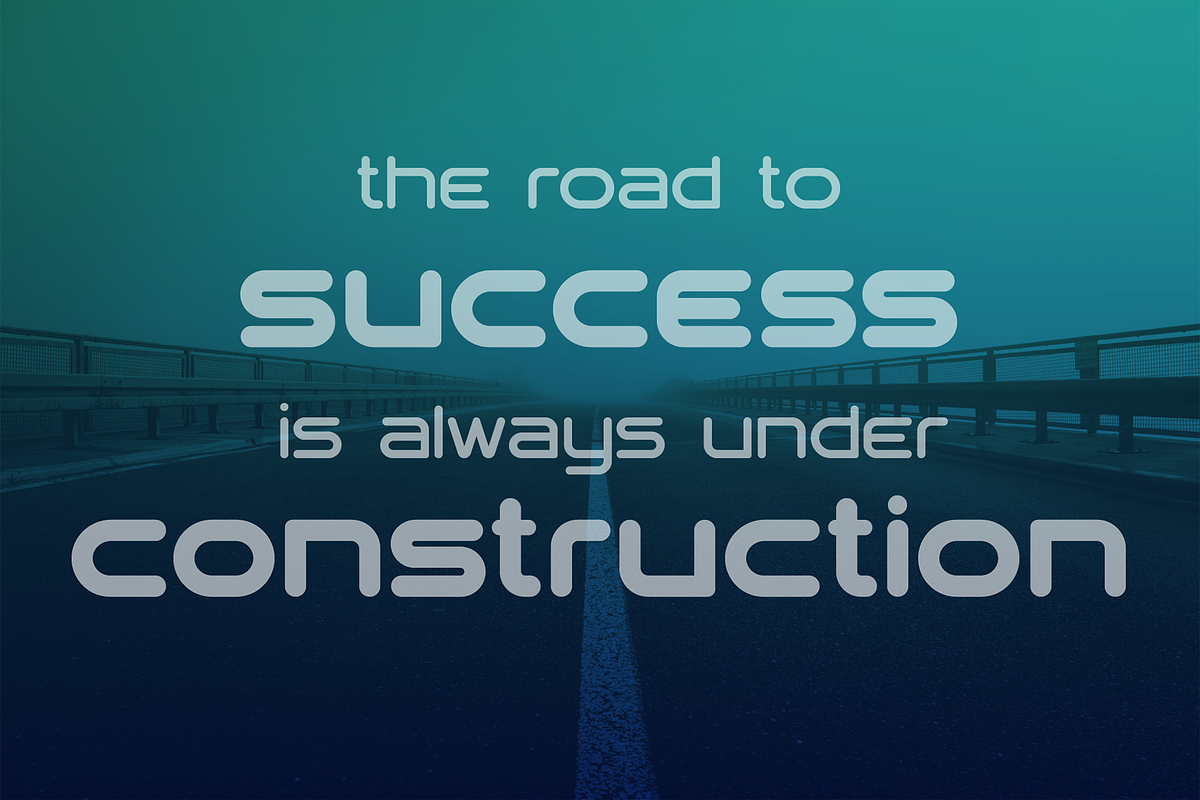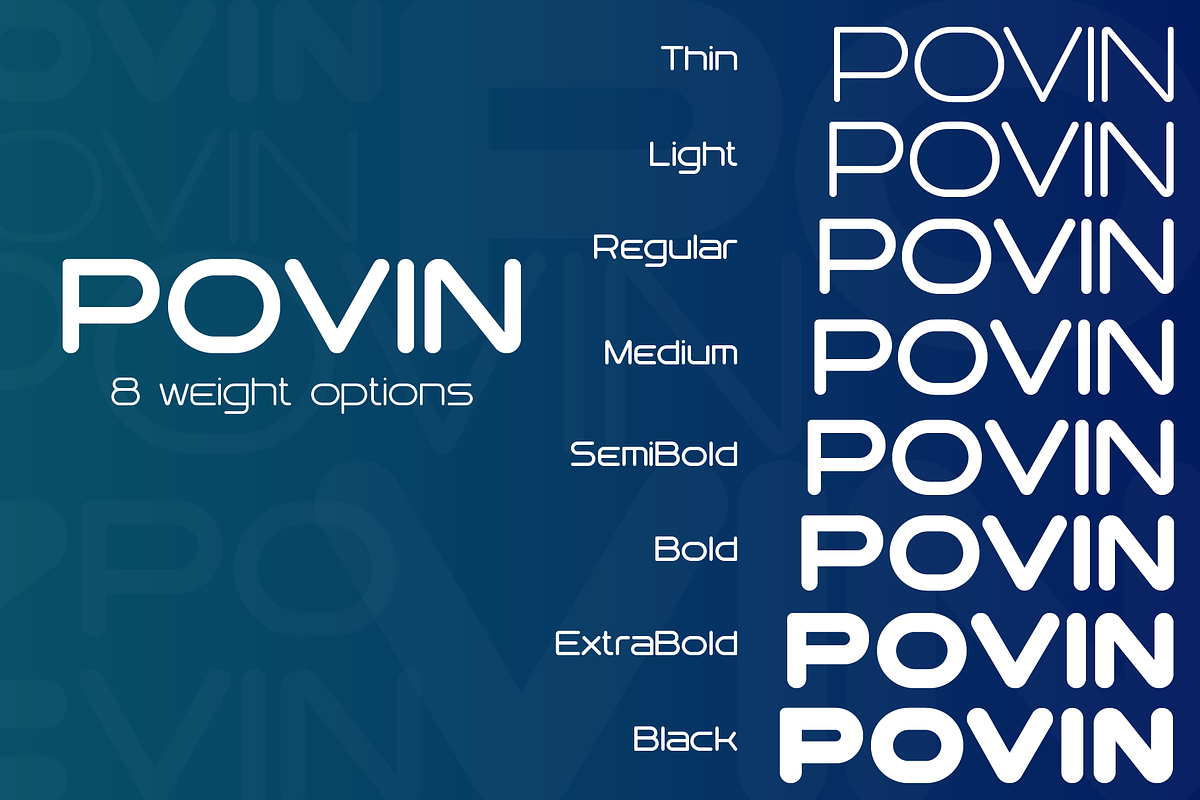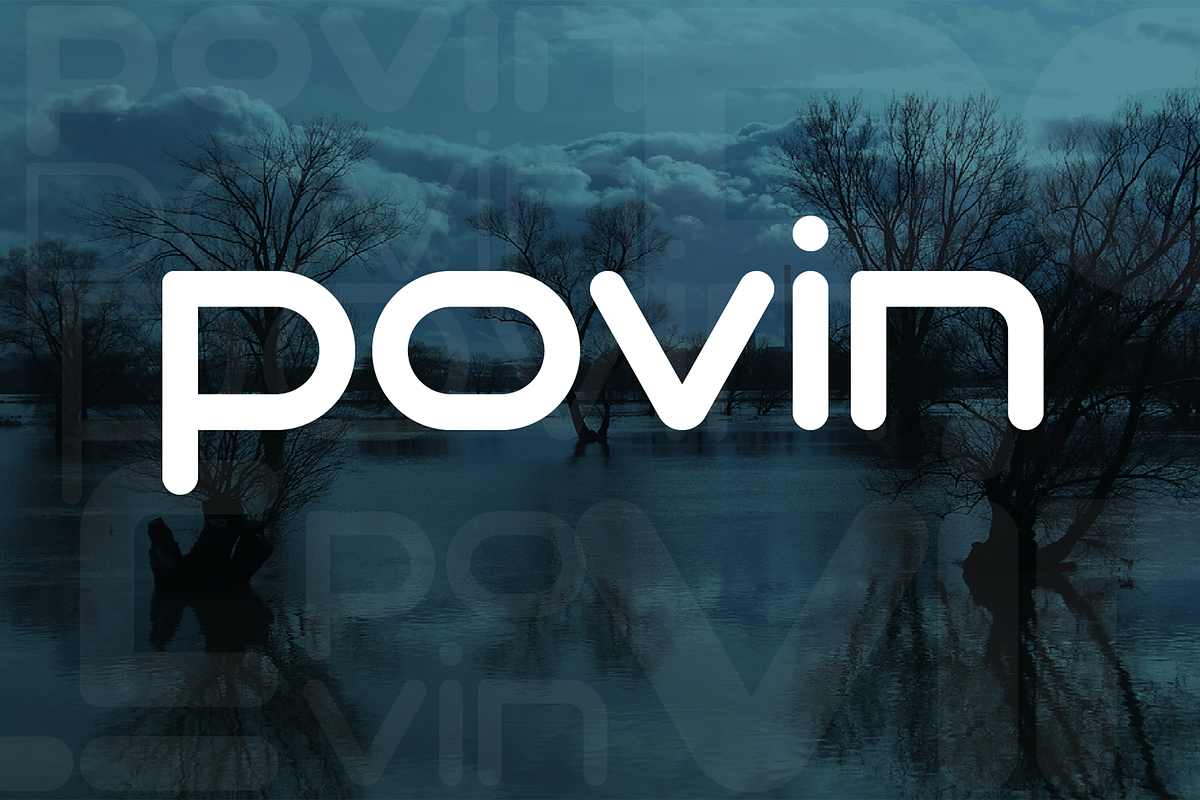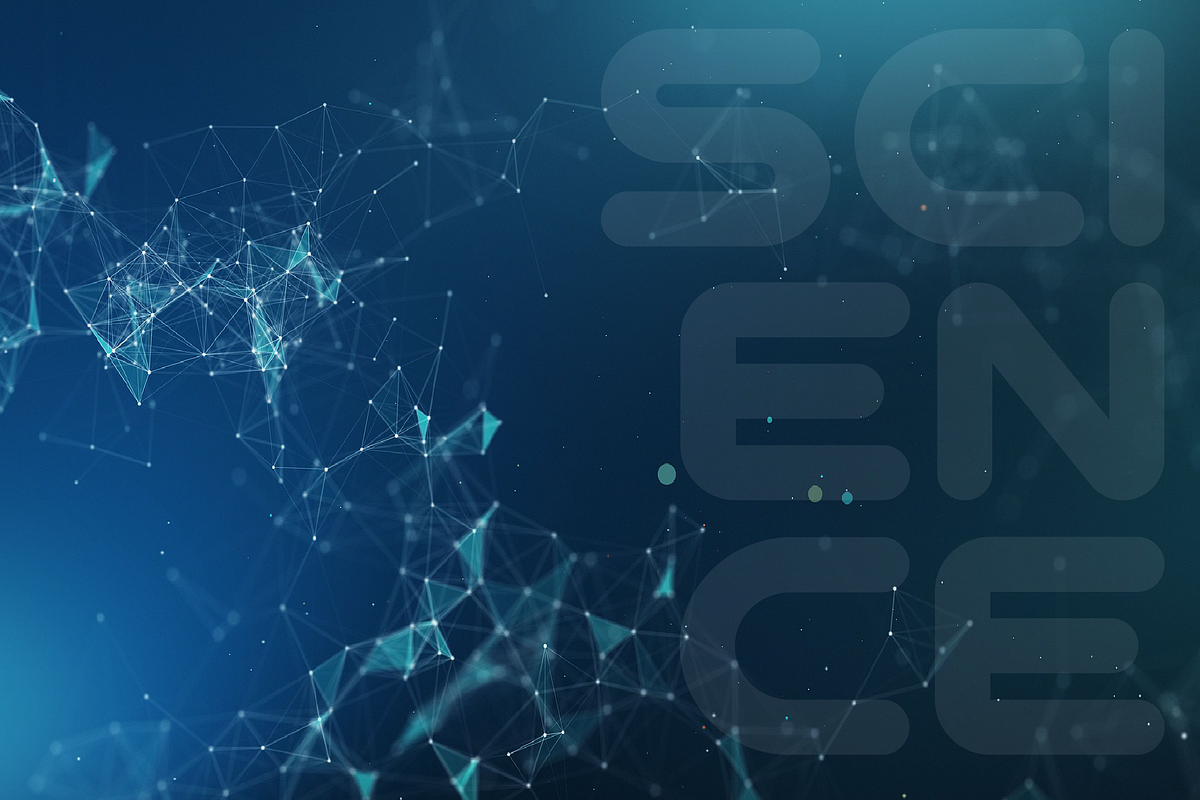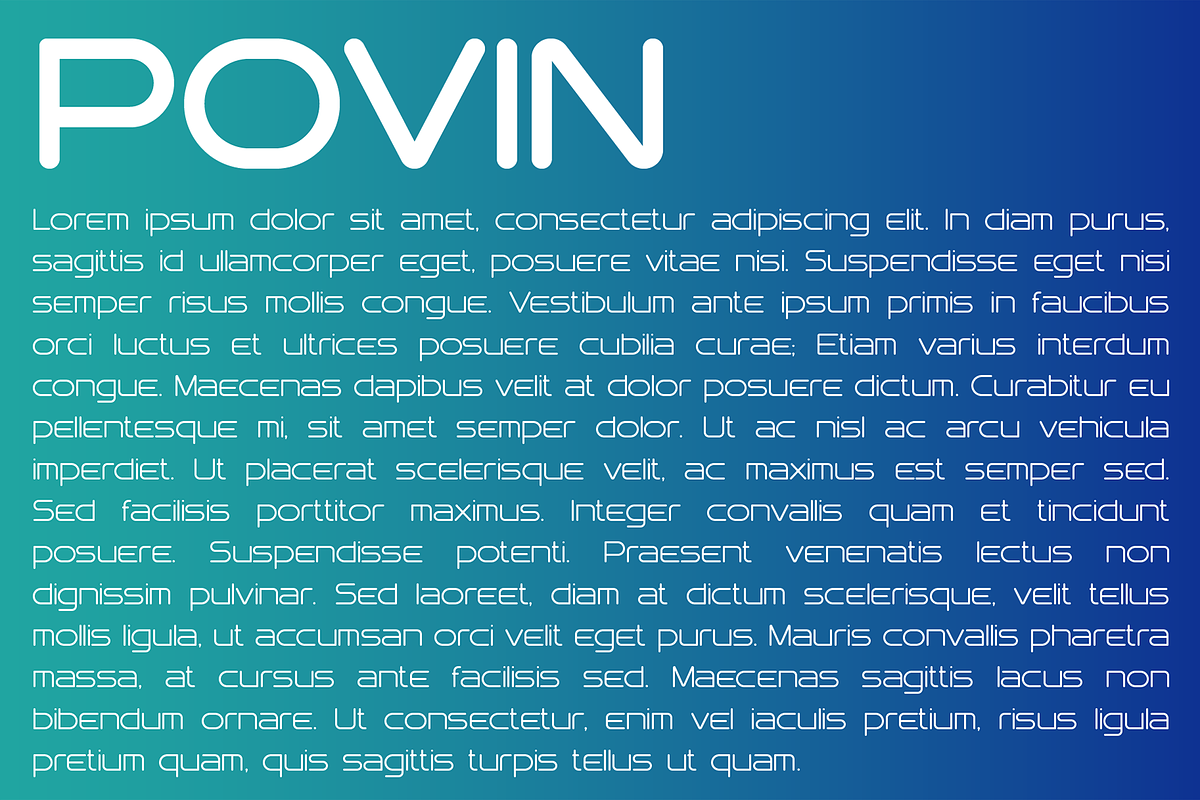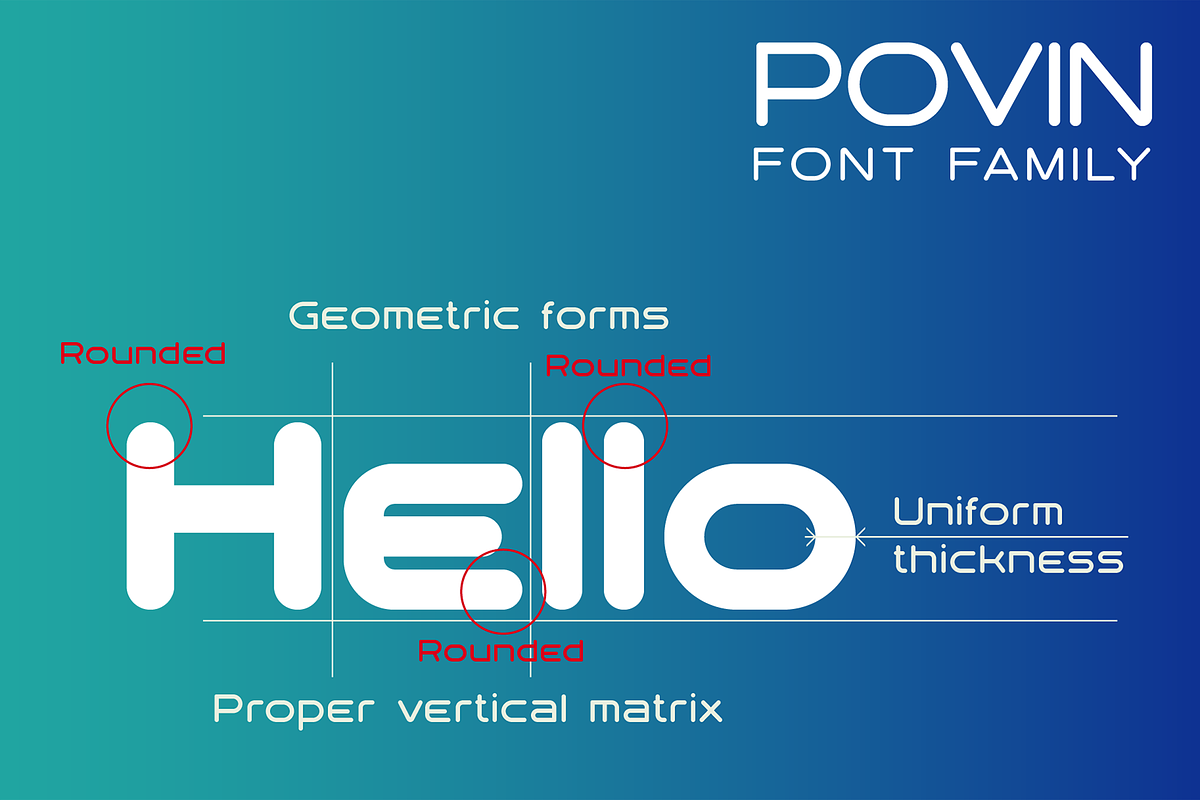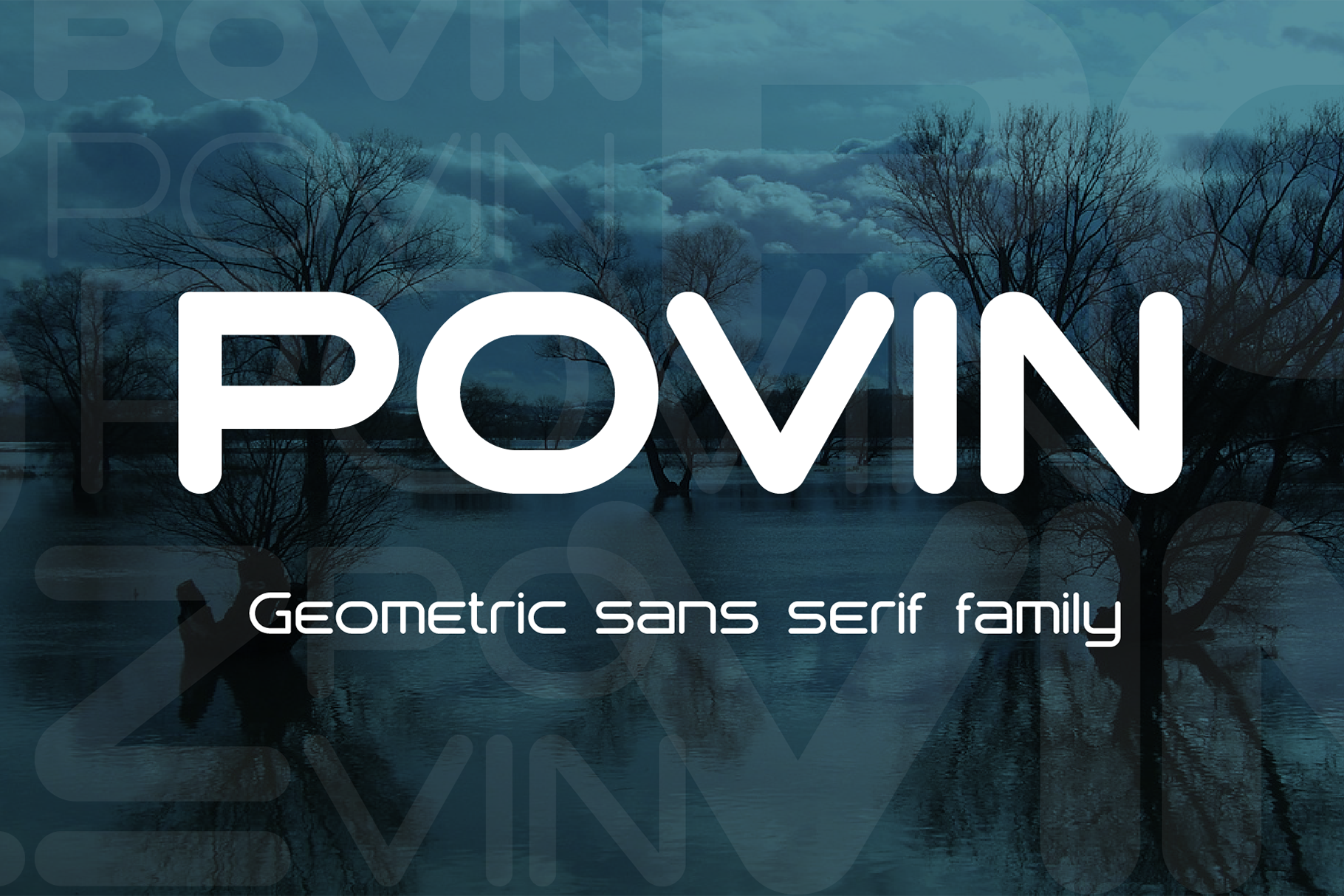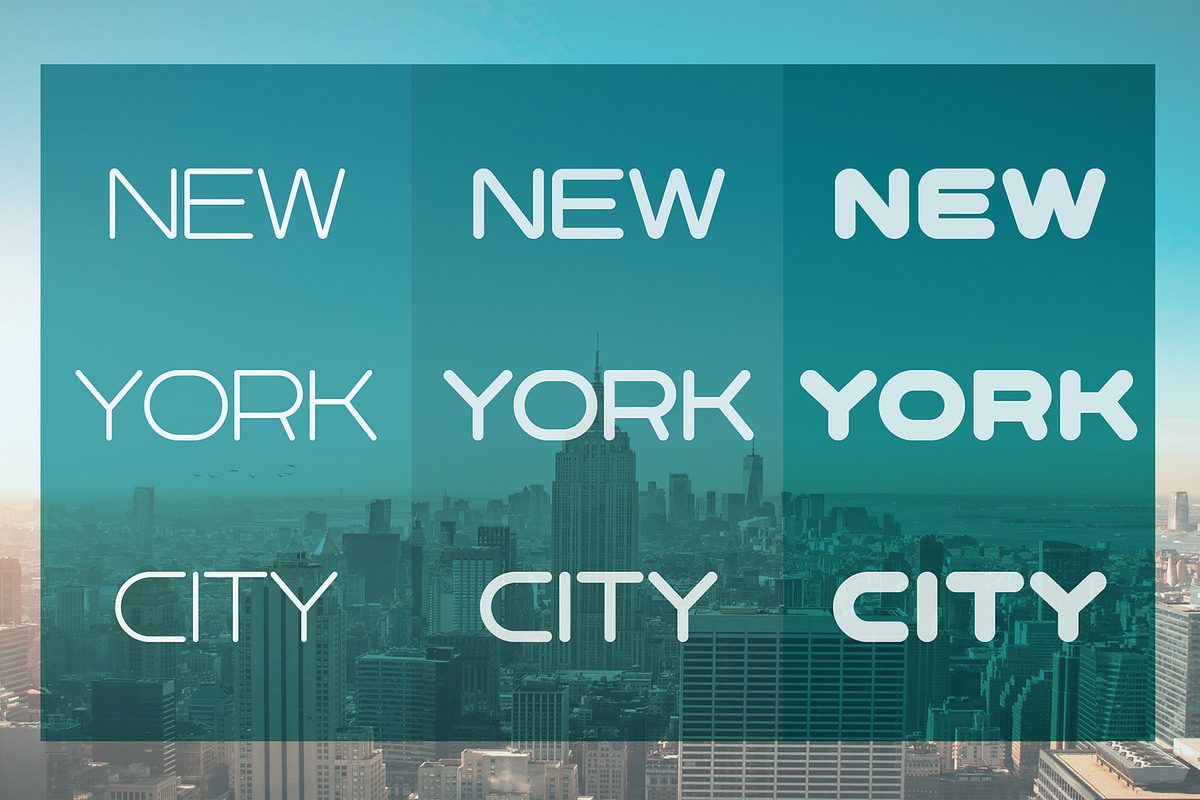
Povin font family
POVIN is a modern sans serif geometric font with rounded edges, includes upper and lower case characters, Latin, Cyrillic, Latin Eastern Europe, Turkish, Baltic and other, 500+ symbols.
POVIN family have the 8 types of thickness, divided into 2 subgroups (according to thickness - M (middle), L (large)), and have the 3 types of thickness in each subgroup.
POVIN fonts will be useful in developing a brand, creating posters and other graphic products, and for word processing.